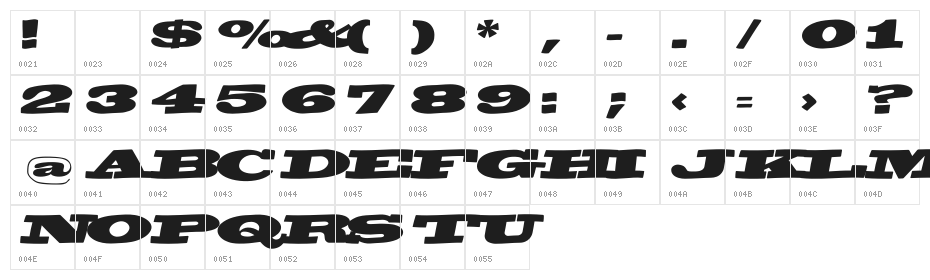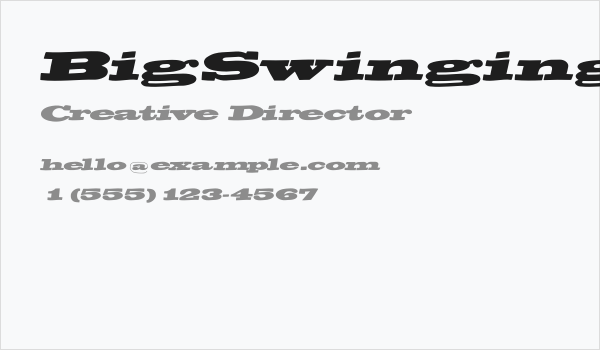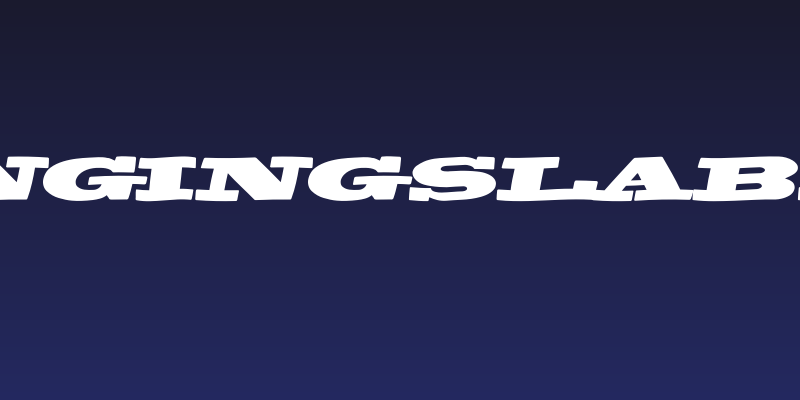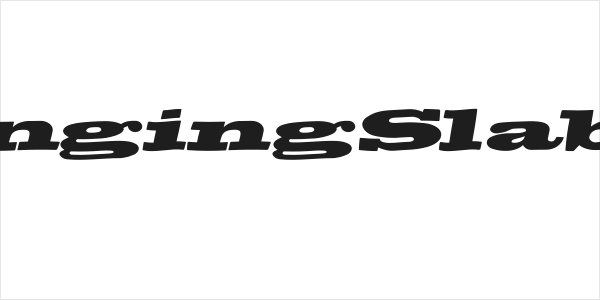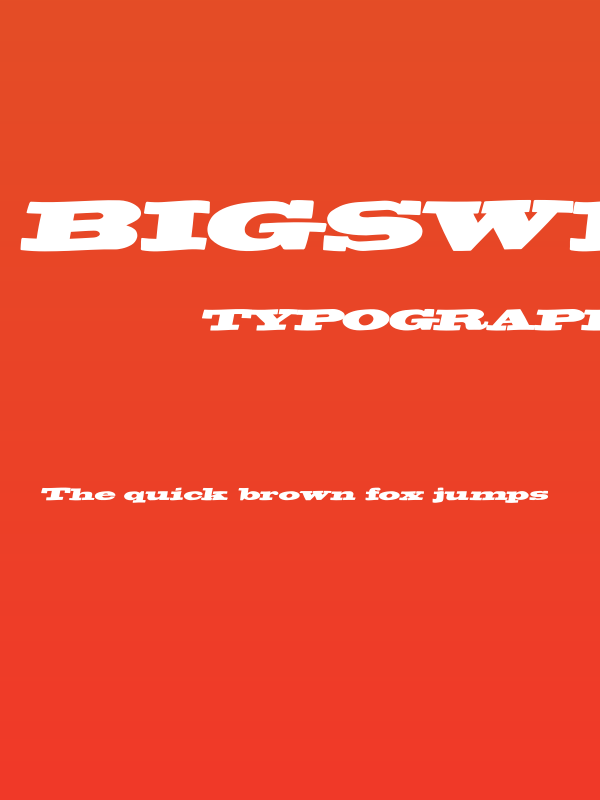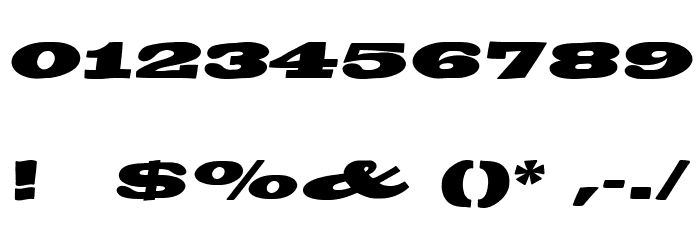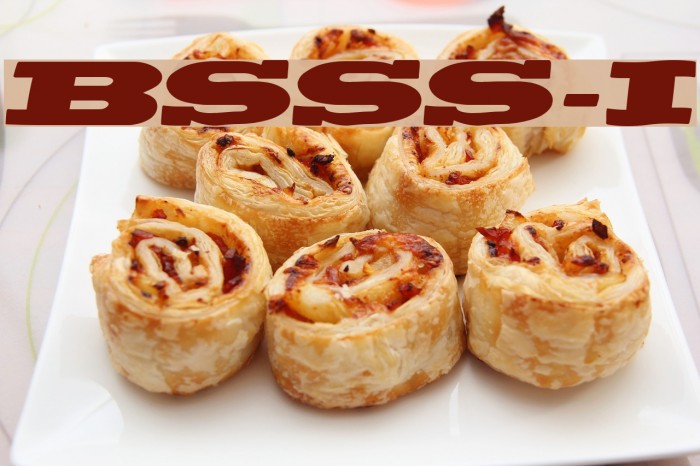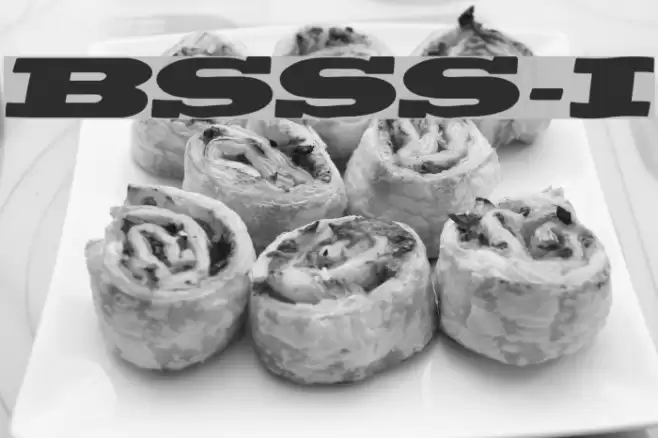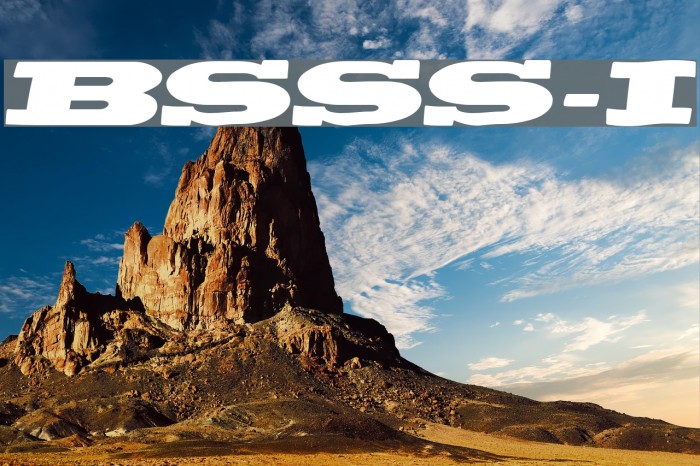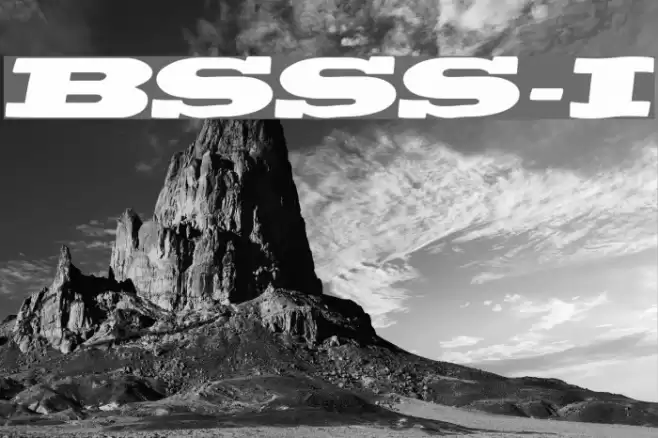
BigSwingingSlabS-Italic Font
BigSwingingSlabS-Italic Description
This font is a bold and dynamic slab serif with a distinct italic slant, giving it a sense of movement and energy. The thick, block-like serifs provide a strong foundation, while the italic angle adds a touch of elegance and flair. Each character is robust and well-defined, making it highly legible even at smaller sizes. The font's bold weight and wide letterforms make it ideal for creating impactful headlines and titles. Its unique style combines traditional serif elements with a modern twist, making it versatile for various design projects.